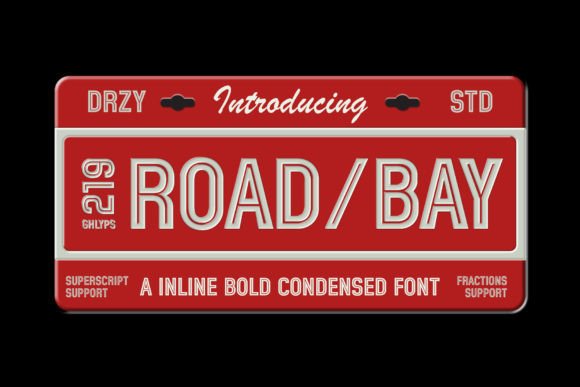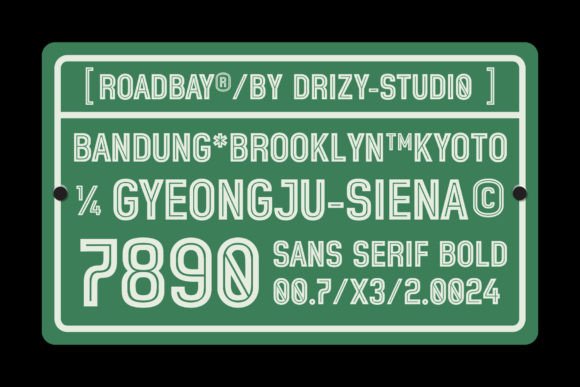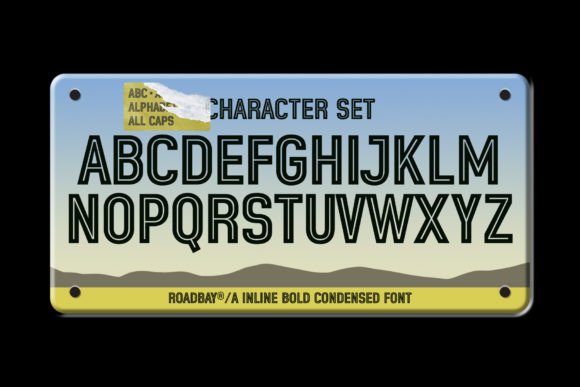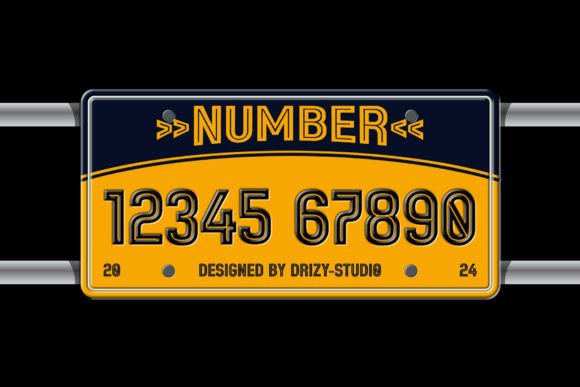
Roadbay Inline Bold Condensed Font
About the Roadbay Inline Bold Condensed Font
Experience the unique personality of Roadbay Inline Bold Condensed Font, a font designed for impact. Introducing Roadbay Inline Bold Condensed: the font that will redefine your designs with its sleek, bold, and dynamic character. Perfectly crafted for those who are unafraid to make a statement, Roadbay Inline Bold Condensed embodies modernity and efficiency, offering a blend of sophistication and readability that’s hard to find.
Roadbay Inline Bold Condensed excels in headline applications, short impactful statements, and branding elements where a strong, confident presence is desired. Its condensed nature makes it ideal for logos, posters, and packaging designs requiring maximum impact within limited space. However, its bold weight and inline structure make it unsuitable for extended body text or user interfaces requiring high readability at smaller sizes.
The font’s core personality is bold and modern, conveying a sense of dynamism and efficiency. It is best suited for brands projecting strength, innovation, or a forward-thinking image.
Pairing Roadbay Inline Bold Condensed with a clean sans-serif like Open Sans for body copy provides excellent contrast and readability. For a more sophisticated feel, consider pairing it with a classic serif like Garamond for supporting text or smaller details. Avoid pairing it with other highly stylized fonts, as this may create visual conflict and reduce clarity.
Roadbay Inline Bold Condensed Font Example